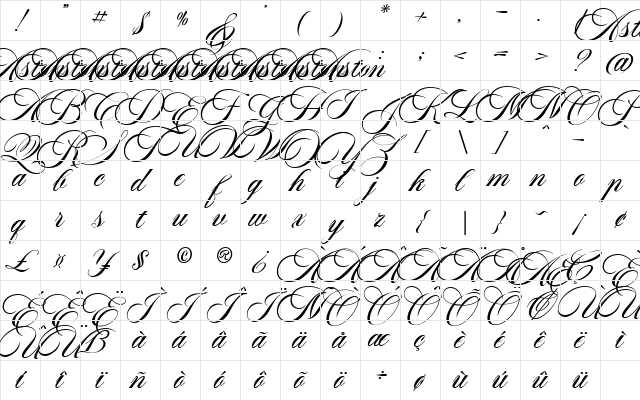
Aston Script Bold Bold Free Font
Aston Script Bold Bold
Foundry: TRF
Designer: TRF
Design Context for Aston Script Bold
Aston Script Bold flows with the natural rhythm of handwritten lettering, making it ideal for designs that call for warmth and personal expression. Its bold stroke weight gives it real presence on the page.
Font Pairing: Combine Aston Script Bold with a simple geometric sans for maximum contrast - the tension between flowing curves and clean structure is a classic typographic pairing.
Pro Tip: Use Aston Script Bold for short runs of text - names, titles, or taglines. Extended body copy in script faces tires the eye quickly.